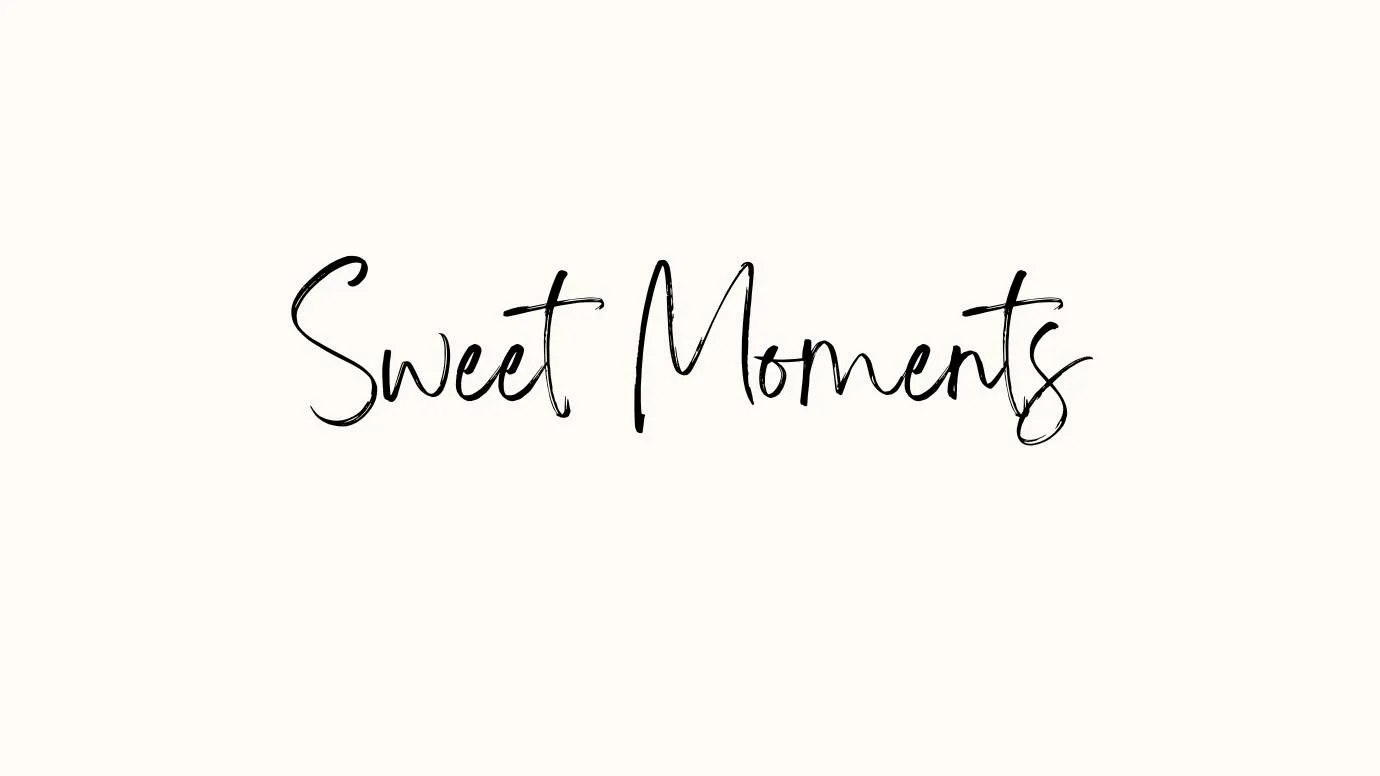
Sweet Moments Font Family is a very friendly typeface. It has a very amazing brush-type style which can be used to design all types of commercial or business projects. It was designed by Donis Miftahudin and manufactured by Din Studios.
TypeBrush